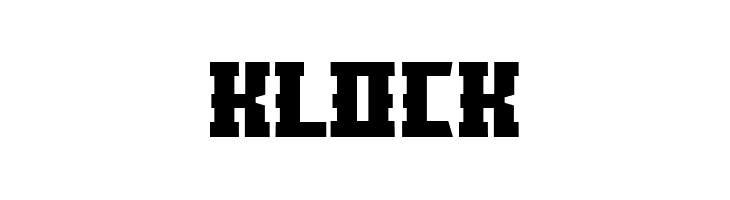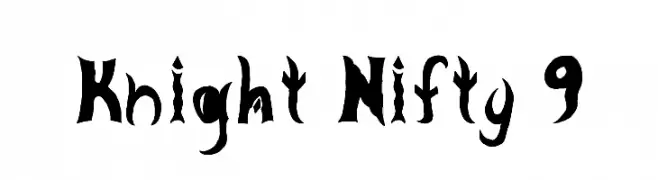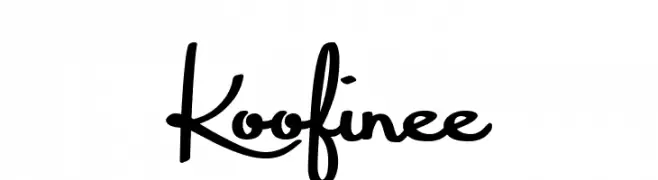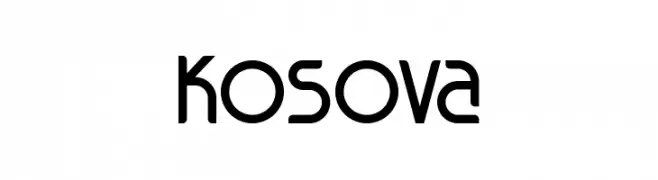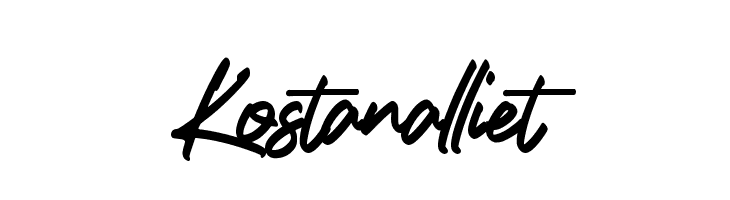
A bold, geometric font with a strong, industrial aesthetic.
A bold, pixelated font with a retro digital aesthetic.
A bold, decorative font with artistic and whimsical character designs.
A bold, distressed font with a vintage, industrial feel.
A playful, handwritten script font with fluid, connected characters.
A geometric, modern font with Korean script-inspired elements.
A modern, geometric font with rounded edges and uniform width.
Bold, energetic handwritten script font.
A bold, energetic script font with flowing, interconnected strokes.